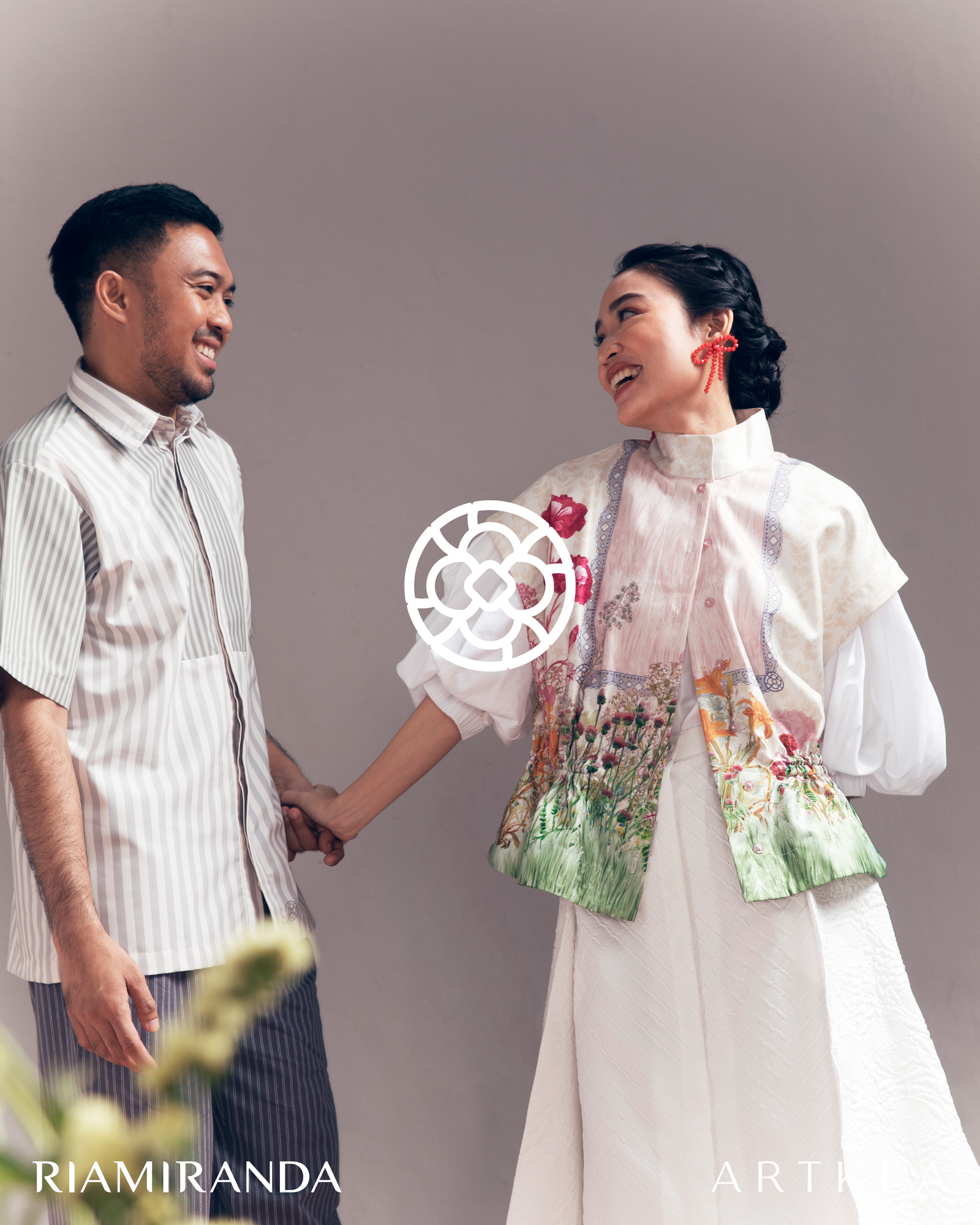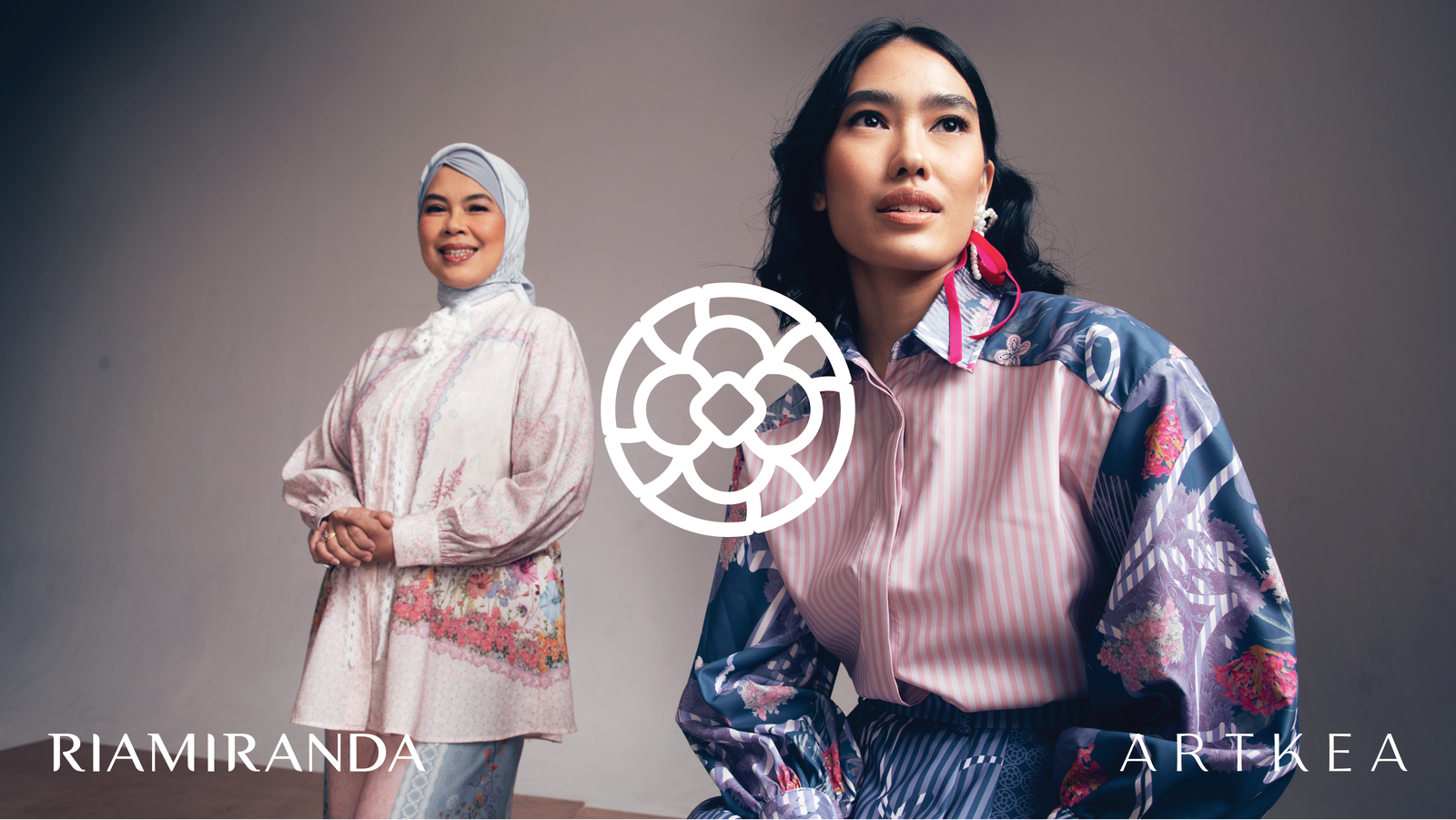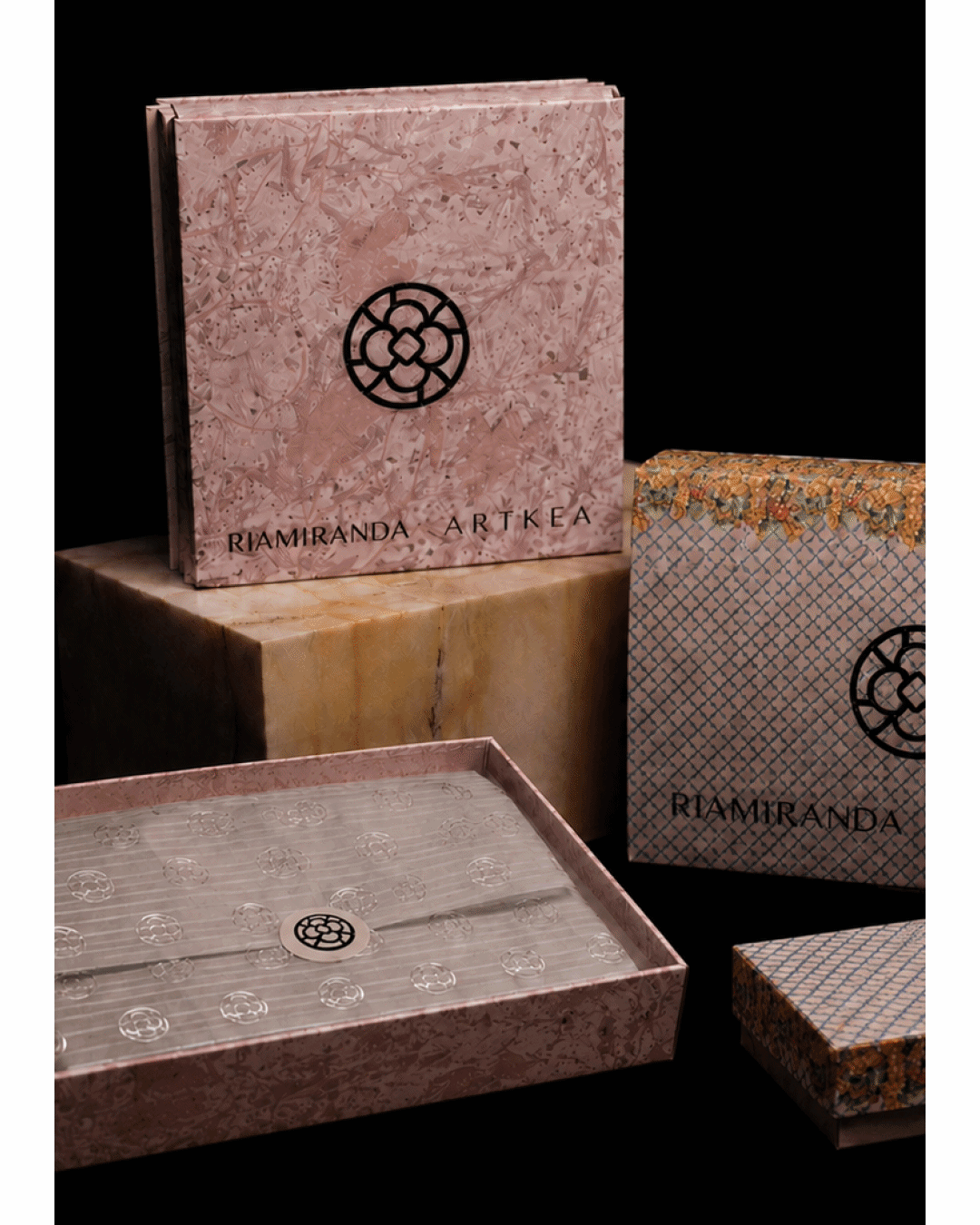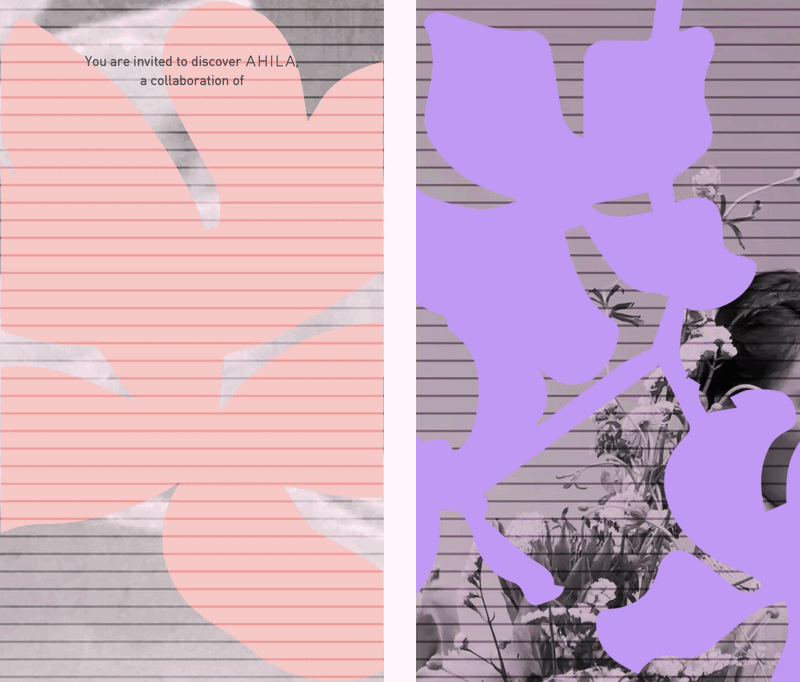
Ahila
The Brief
For their collaborative Eid collection, Ria Miranda and Artkea needed a single unified identity that belonged to neither brand alone.
The constraint was real: Artkea is defined by stripes, Ria Miranda by bold lace patterns. Both brands carry flower-adjacent marks. The new identity had to be strong enough to stand on its own without erasing what either brand had spent years building, and restrained enough not to compete with the maximalist patterns on the garments themselves.
The collection is named AHILA—meaning family. Each piece in the collection represents a member of the family, expressed through the distinct visual philosophies of both brands.
The Work
The concept was growth and development, understood in four stages: growth as physical change, development as behavioral change, learning as adaptation, maturation as the transition into a complete form.
Each piece corresponds to a stage of growth, and each stage corresponds to a family member: growth as the beginning of form, development as the assumption of new roles, learning as adaptation within a shared environment, maturation as the complete and settled self. Worn together by a family on Eid, the collection becomes a portrait of that progression. Separately, each piece is a complete statement of where one person stands in it.
The mark was built by merging the monograms of both brands into a single flower silhouette. Artkea’s geometry and Ria Miranda’s organic pattern language are not layered on top of each other, but are resolved into one form. The flower carries both identities without announcing either.
The same mark functions as a repeating pattern across collaterals. Wrapping paper, garment tags, and printed postcards all carry the motif at different scales.
Typographic Decisions
In a collection where the pattern is the product, type that competes is type that fails. The decision was to give the typography one role: hold the system’s structure without claiming visual territory. Hierarchy in a maximalist identity is achieved by knowing precisely where to apply it. The type is where that decision lands: simple and direct.
The System in Use
The packaging is where the identity earns its restraint. The flower mark at full scale on wrapping paper reads as pattern first, logo second—which is exactly the right hierarchy for a fashion collection where the garment is the primary object. Garment tags and printed postcards bring it to a smaller, closer register. At every scale, the mark holds its own as both a symbol of AHILA and a quiet acknowledgment of the two brands that made it.